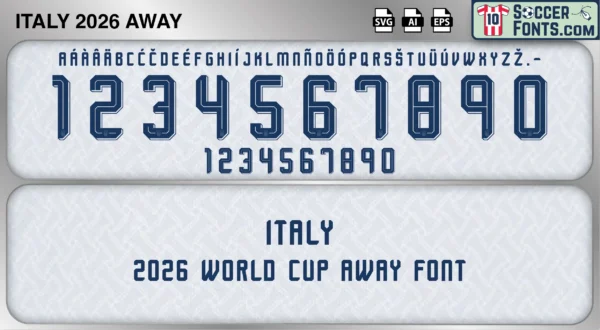
Italy 2026 World Cup Font Away
The Italy 2026 World Cup Font Away is an editable soccer jersey lettering design in vector format inspired by the Italy away kit style used during the 2026 FIFA World Cup. This football font artwork is prepared for football shirt recreations, custom jersey projects, football kit mockups and sports graphic design workflows.
The 2026 FIFA World Cup marks another significant chapter in the history of the Italian national team, one of the most respected and successful nations in world football. Italy’s football identity has been shaped by generations of legendary players, unforgettable World Cup moments and a deep connection between supporters and the national team. As Italy competes in the United States, Canada and Mexico, a new generation seeks to add its own achievements to a football tradition that stretches across decades of international competition.
The Italy 2026 World Cup Font Away is specifically linked to the typography used on Italy’s away shirts during the tournament. For the 2026 World Cup cycle, Adidas introduced separate home and away lettering systems for selected national teams, creating unique identities across different kit versions. The Italy 2026 World Cup Font Away represents the official tournament-era font used on Italy’s away kit and forms part of a complete World Cup typography collection. Italy away shirts from this tournament are expected to become popular among football shirt enthusiasts, collectors and sports designers seeking accurate references from one of football’s most prestigious international competitions.
Italy 2026 World Cup font away football shirt vector design
Italy 2026 World Cup Font Away